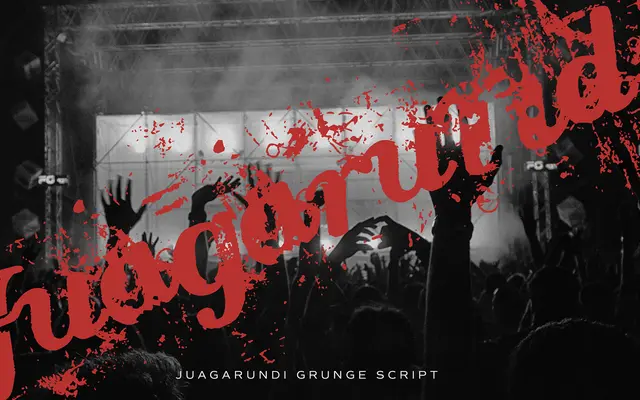
Jaguarundi
A scratched and worn display face named after a Central and South American wild cat, aimed squarely at rock, grunge and underground poster work.
The face takes its name and spirit from the jaguarundi, a small wild cat of Central and South America, translating that rough, feral quality into a heavily distressed letterform. Its scratched and decadent texture suits posters, album art and flyer work where a raw, unglamorous edge is the point. A single style with no weights or italics keeps the offering tight and purposeful.
A heavily textured, scratched display face with no text utility; its worn, decadent aesthetic places it firmly in the distressed display category.